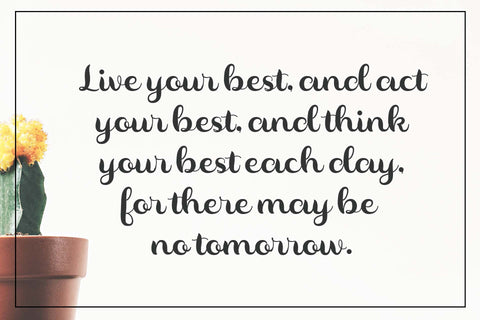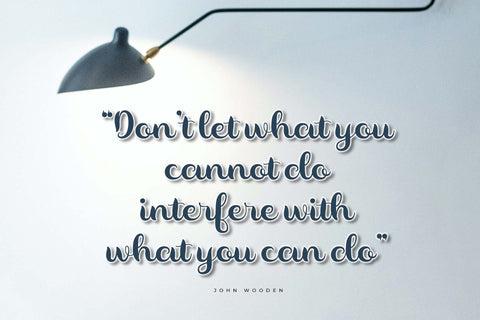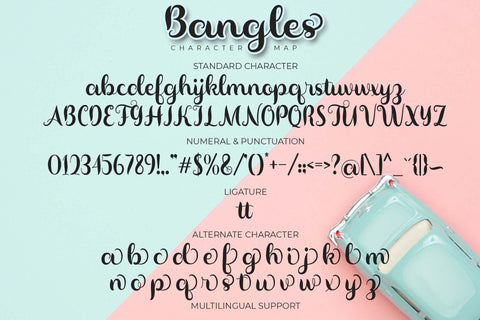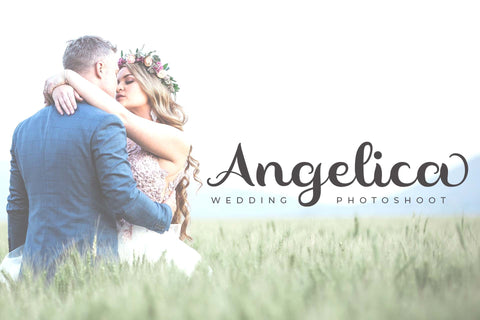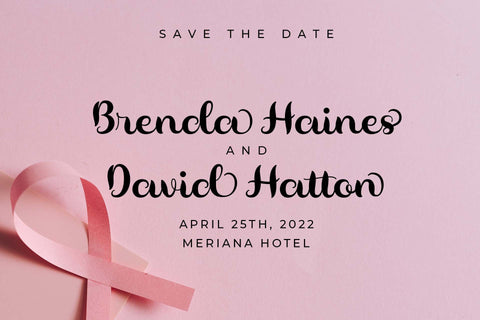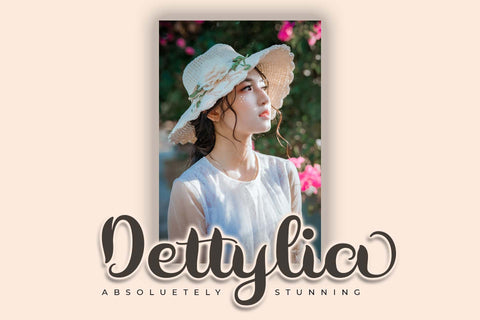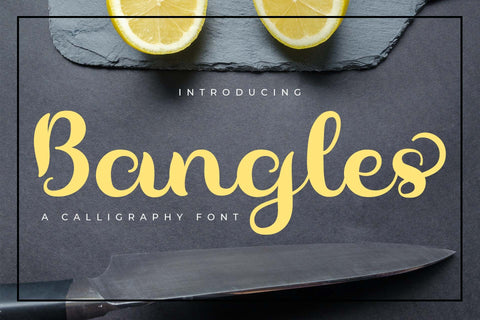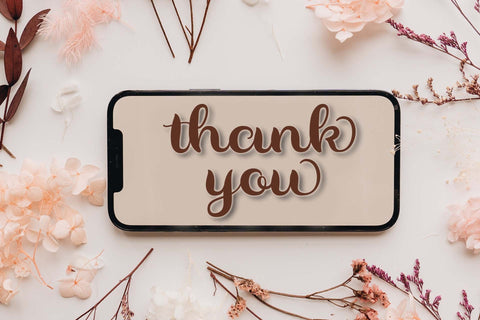
Bangles
Bangles is an exquisite handwritten font, masterfully designed to become a true favorite. This font is PUA encoded which means you can access all of the glyphs and swashes with ease!